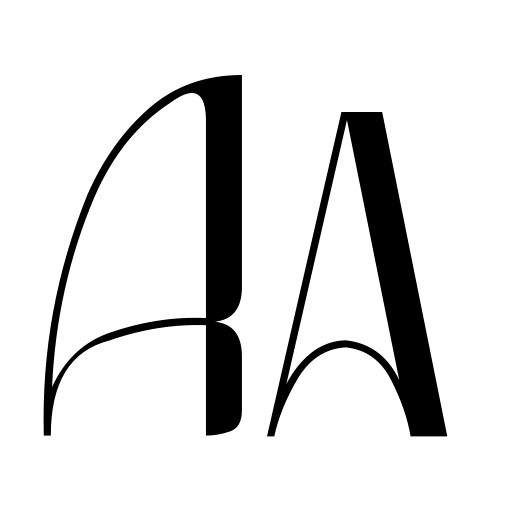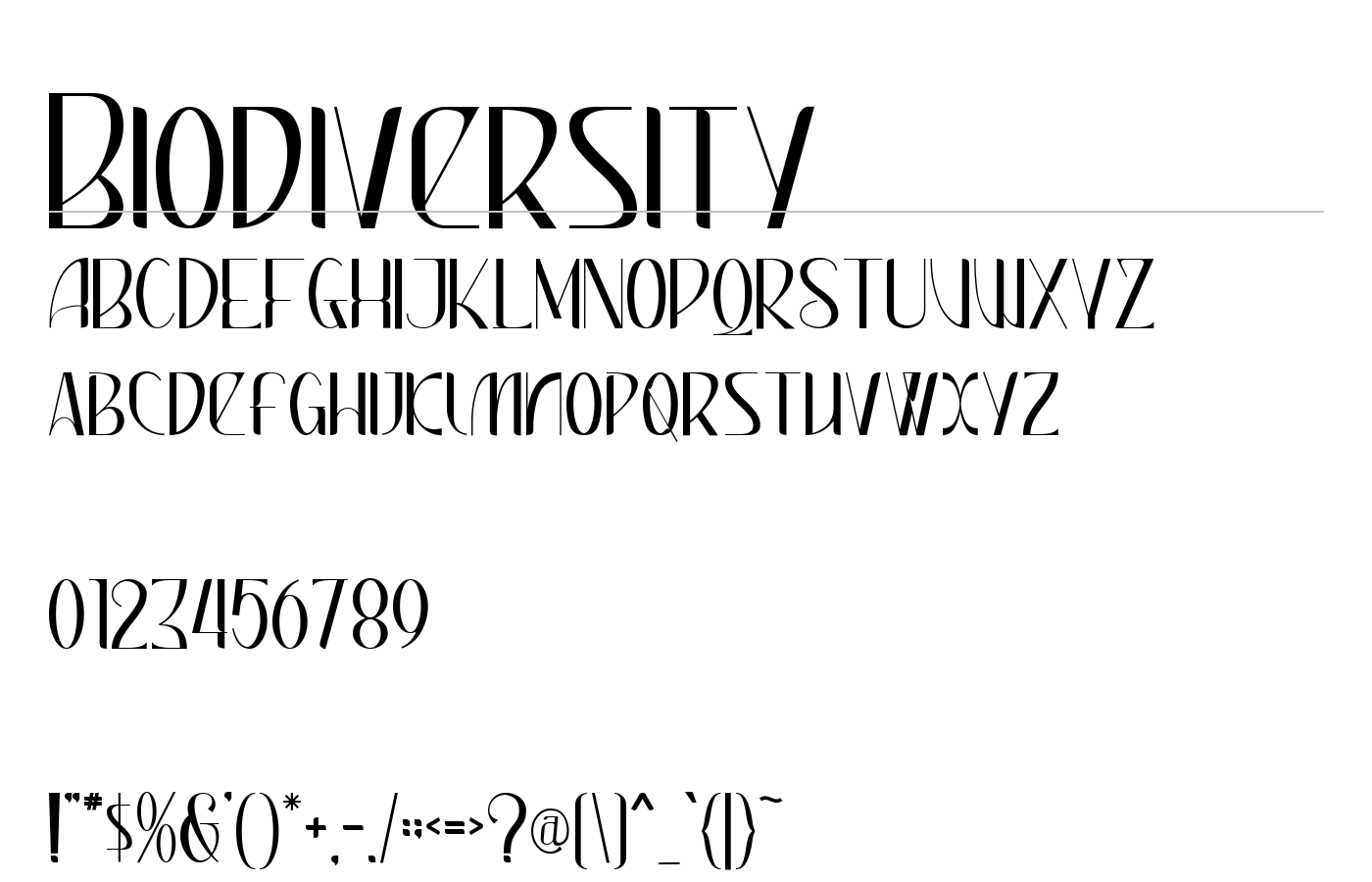
Biodiversity Font is a slender, elegant serif typeface with a distinctive Art Deco influence, featuring high contrast between thick and thin strokes and thin, sharp serifs. Its tall, condensed letterforms with subtle curves and unique details give it a stylish, sophisticated character, making it ideal for luxurious branding, fashion headlines, and striking editorial titles. This font works best where a refined, modern yet vintage flair is desired, capturing attention while maintaining readability in larger display settings.
Biodiversity Font
About Biodiversity Font
| Font family | Biodiversity Font |